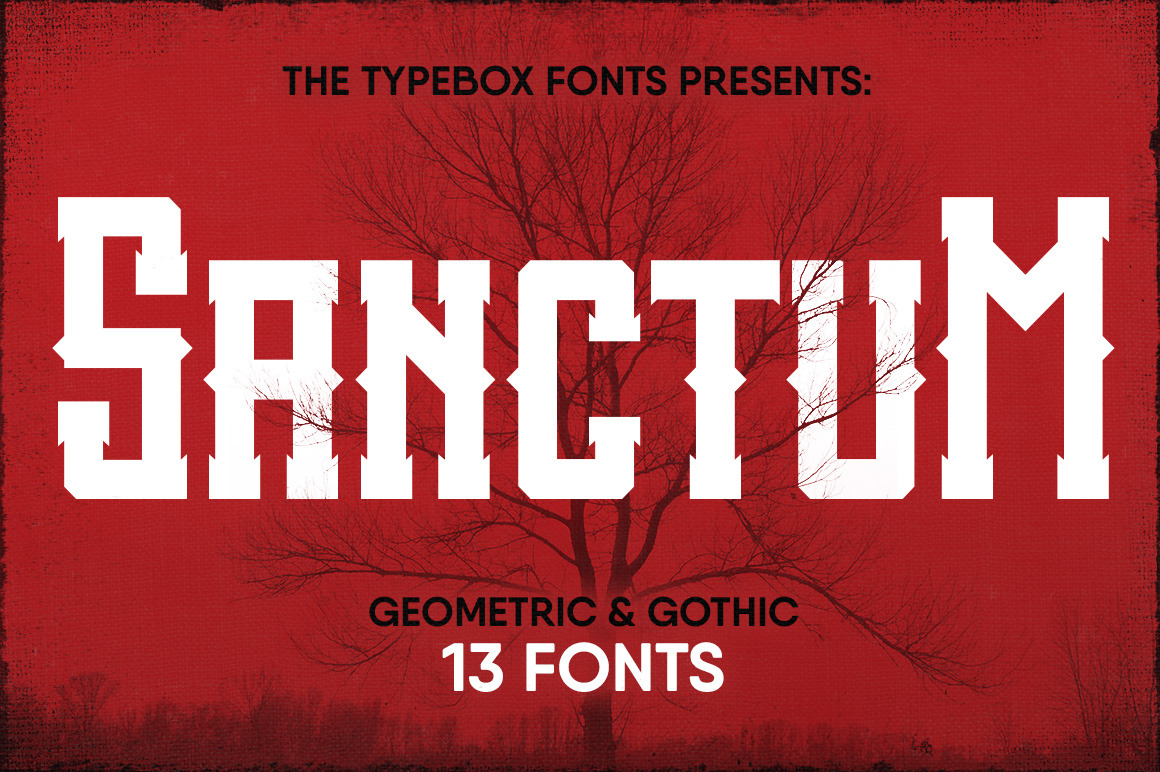
Sanctum Font Pack
The TypeBox presents:
Sanctum, the geometric neo-gothic font Family great for labels, packaging and posters
You will get te complete Sanctum Family with 8 fonts with 156 glyphs each:
- Sanctum Regular
- Sanctum Alternate
- Sanctum Elongated
- Sanctum Hatched
- Sanctum Oblique
- Sanctum Outline
- Sanctum Shadow
- Sanctum Thin
You also get 5 extra inky Sanctum fonts with 97 glyphs each :
- Sanctum LineShadow
- Sanctum Pointillism
- Sanctum ShadeLines - FREE! (See below)
- Sanctum Stamped
- Sanctum Woodcut
When using Sanctum Alternate, play with uppercase and lowercase, also mix with Sanctum Regular to create unique letterings.